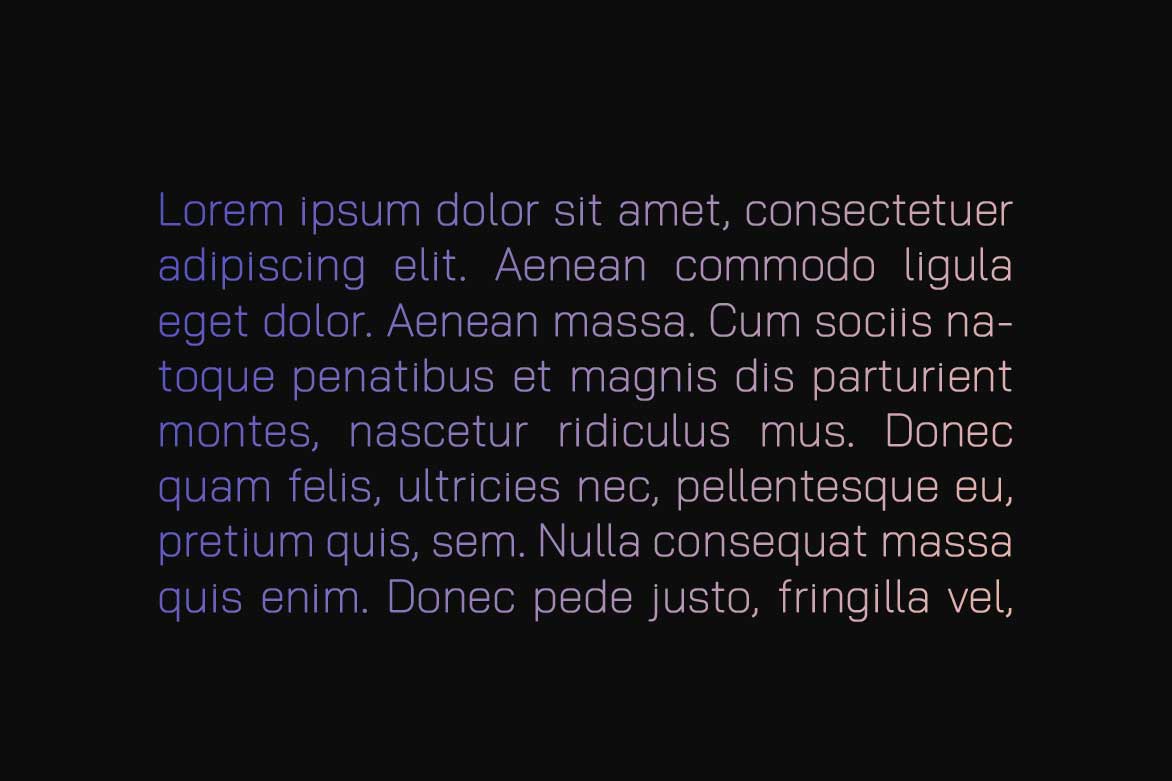
Rectory is a modern and Minimal Sans Serif typeface, Rectory Sans can keep the minimalism at its level best and is a Perfect choice for Creative and Classic Typography Designs with unique typography with 4 font weights. The pack includes OTF, TTF, and Web Fonts